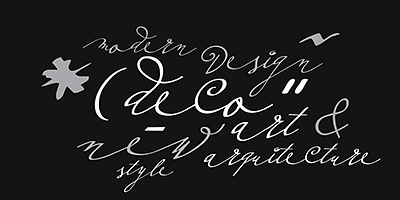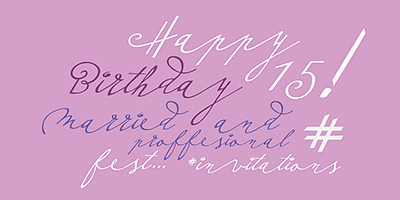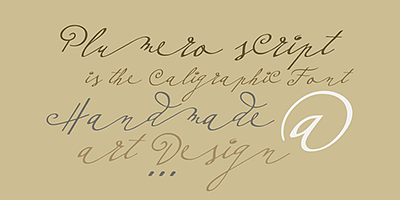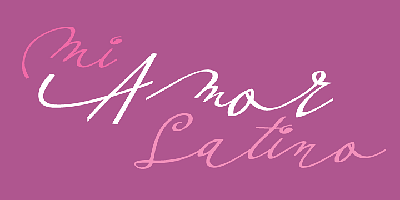
Plumero is the wild, playful side of calligraphy. The disciplined elegance of old lettering is replaced with the fresh, joyful swashes of youth. Attractive and care-free, Plumero catches the eye and leaves its viewer with an indelible impression of its unmistakable signature.